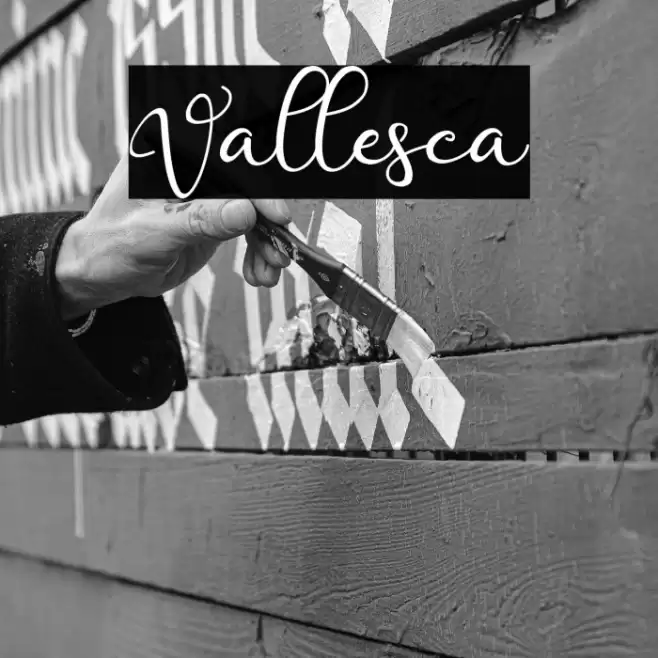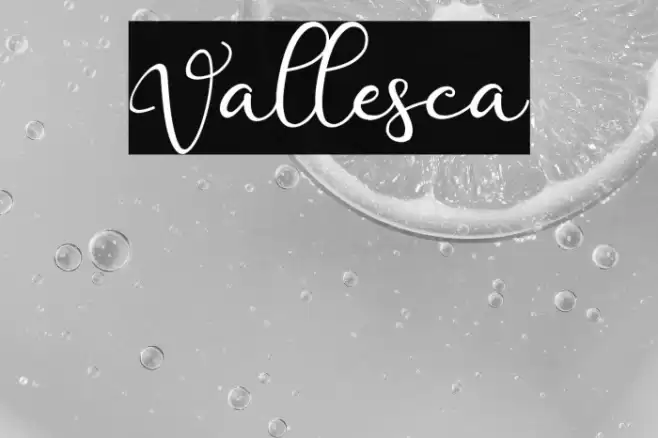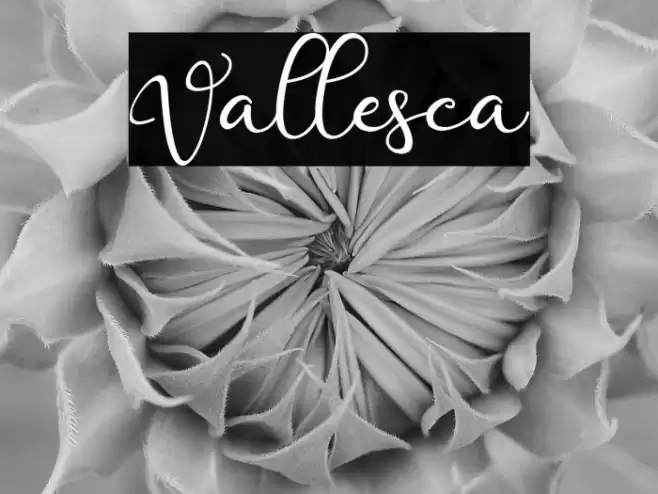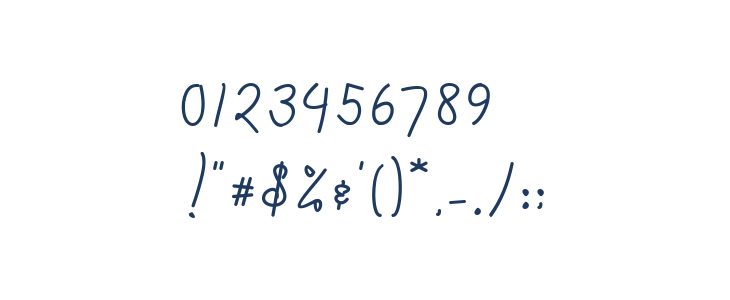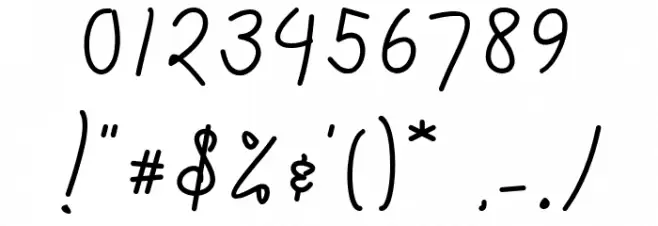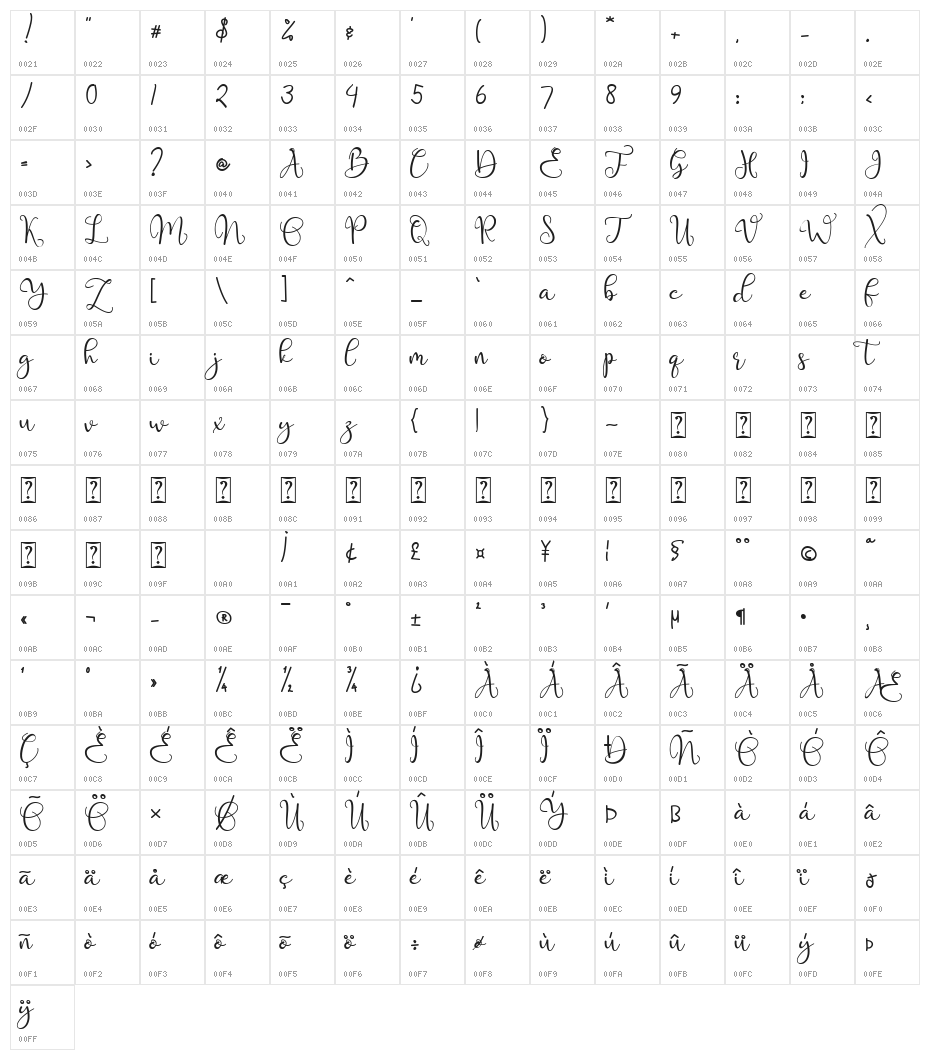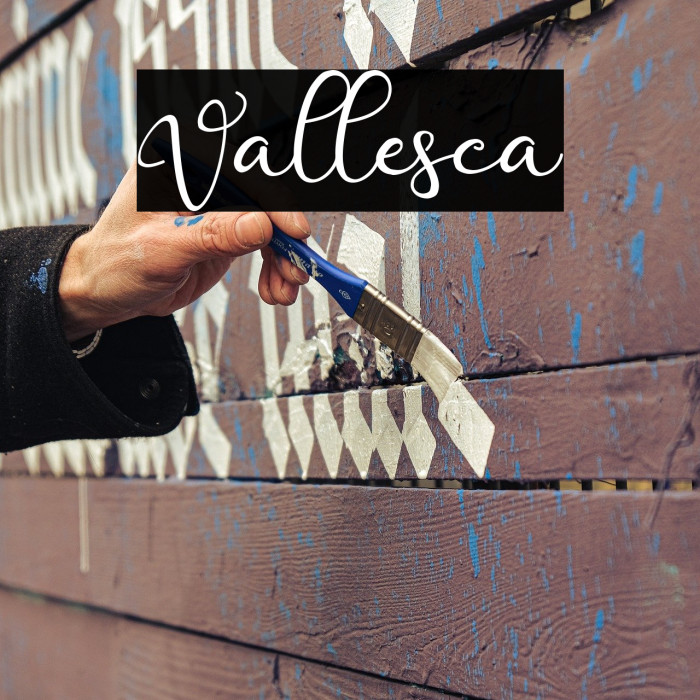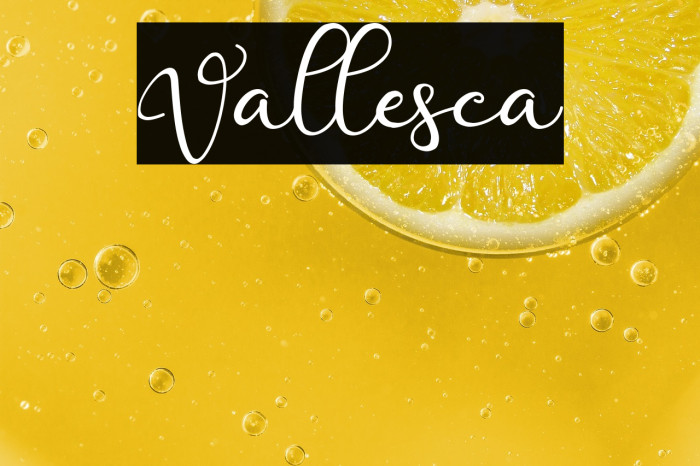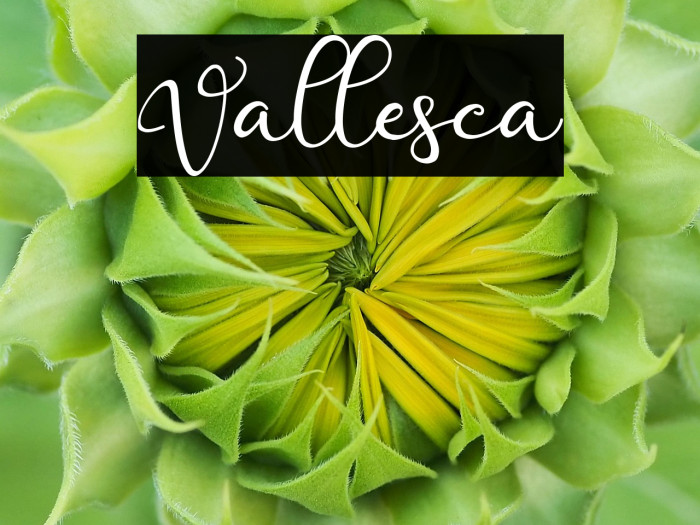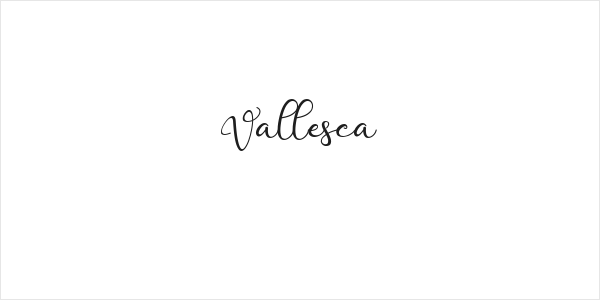
Vallesca Font
Vallesca Description
This font is a beautifully crafted script style that exudes elegance and fluidity. The uppercase letters are characterized by their intricate loops and swirls, giving a sense of sophistication and grace. The lowercase letters maintain a consistent flow, with smooth curves and a slightly playful touch. The numerals are clear and easy to read, while the special characters complement the overall style with their unique flair. This font is perfect for projects that require a personal and artistic touch, such as invitations, greeting cards, and branding materials.
An elegant and fluid script font with intricate loops and swirls from Regular fonts.
- Proposed Projects: Ideal for wedding invitations, greeting cards, and artistic branding.
- Overall Style: Elegant
- Use Case: Logos, Invitations, Artistic projects